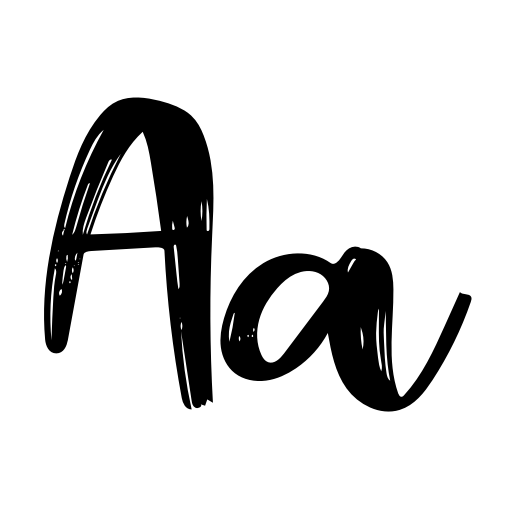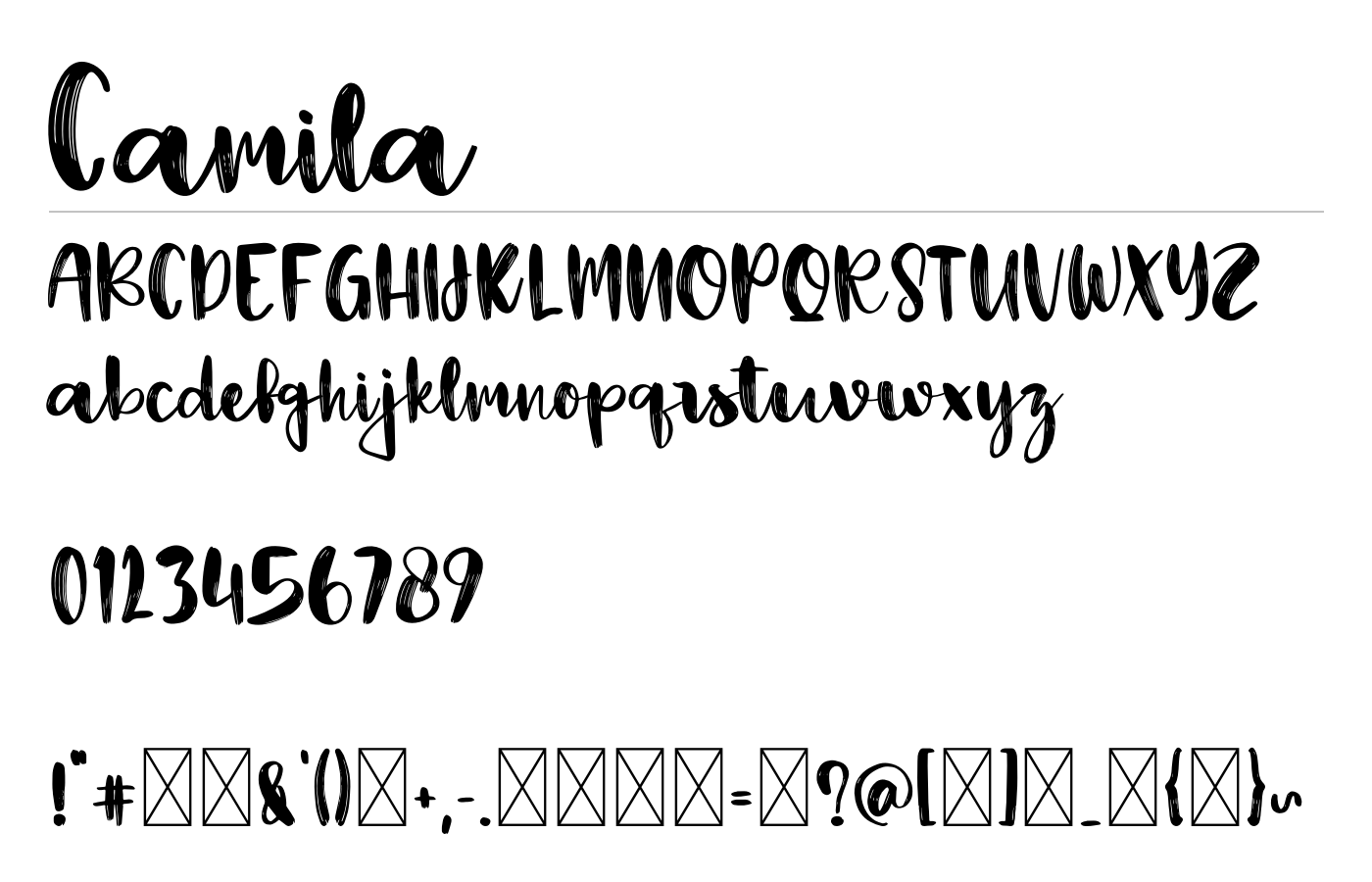
Camila is a lively and playful handwritten brush script font featuring bold, textured strokes that create an energetic and friendly vibe. Its natural, casual letterforms with high contrast and smooth curves make it ideal for creative projects, branding, and designs that aim to feel approachable and personal. This font works especially well for headlines, invitations, and social media graphics where a fun and expressive touch is desired.
Camila Font
About Camila Font